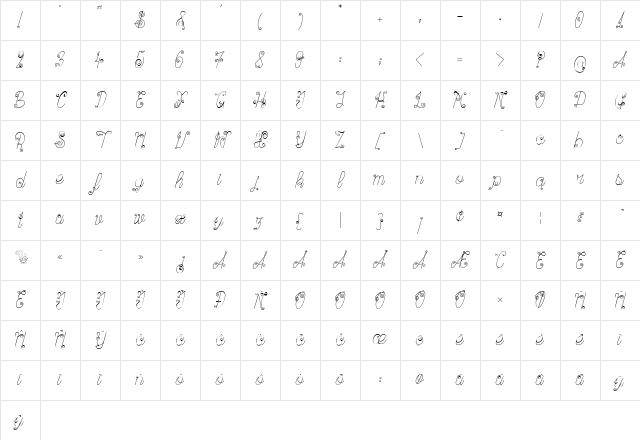
Ribambelle Regular Free Font
Ribambelle Regular
Foundry: dcoxy Medina Gregory
Designer: dcoxy Medina Gregory
Design Context for Ribambelle
Ribambelle is a composed and adaptable typeface that performs quietly and consistently across a wide range of design contexts.